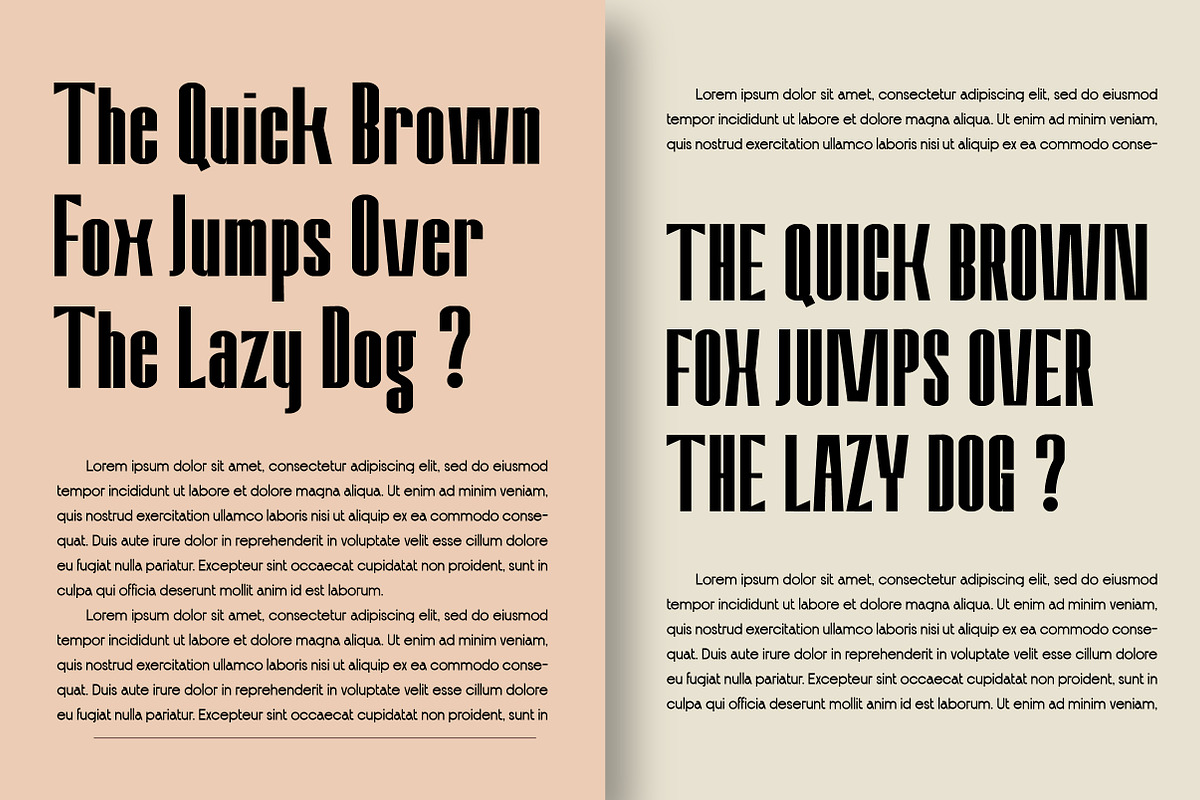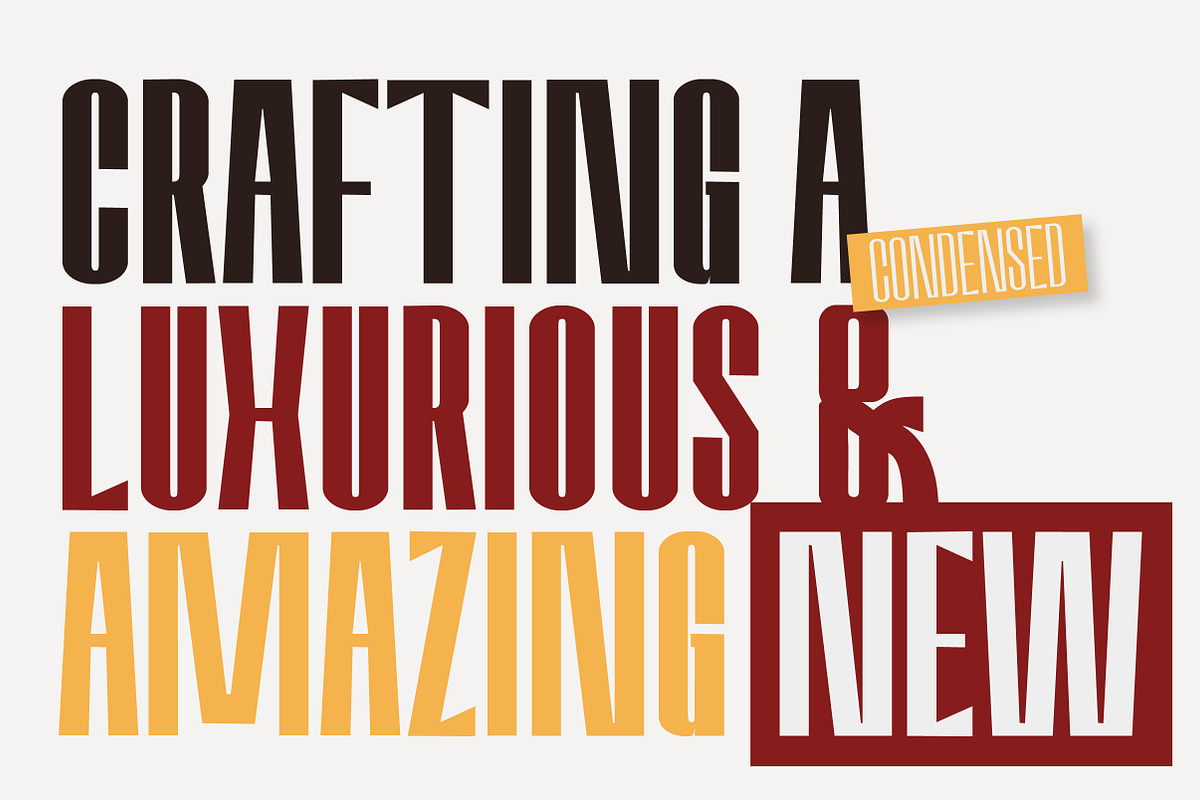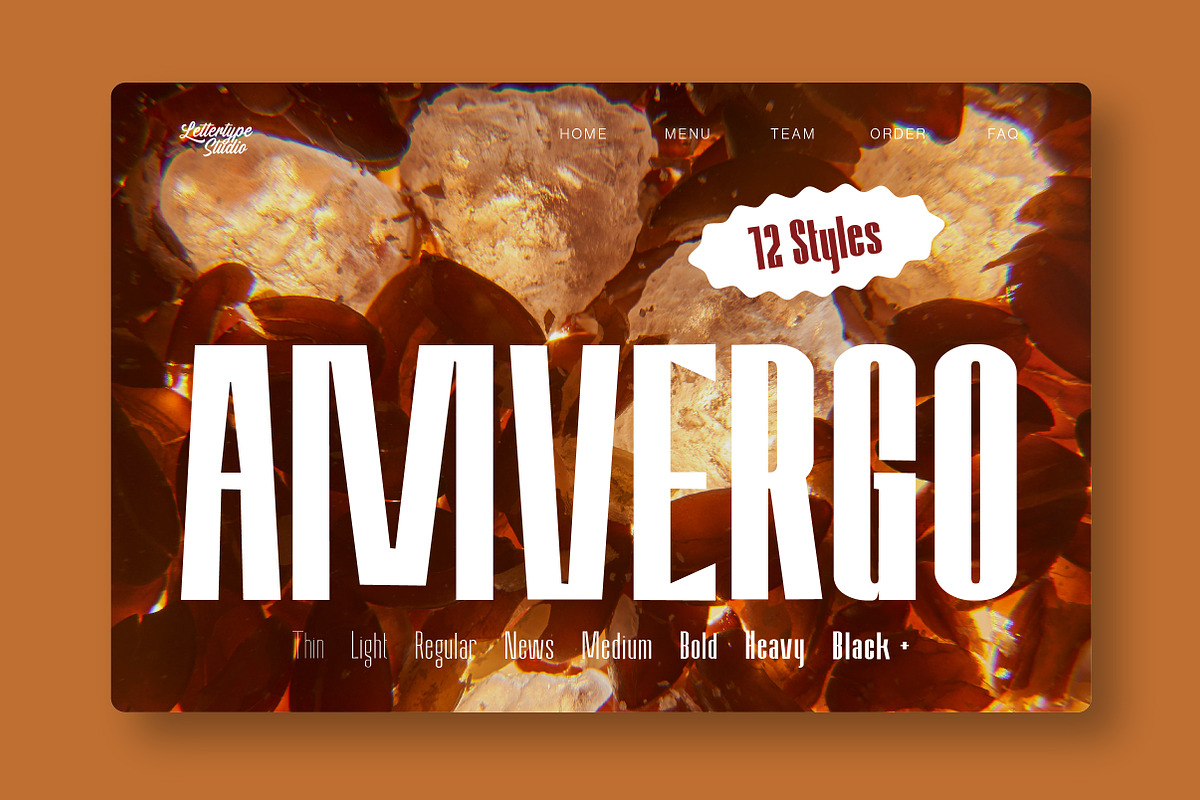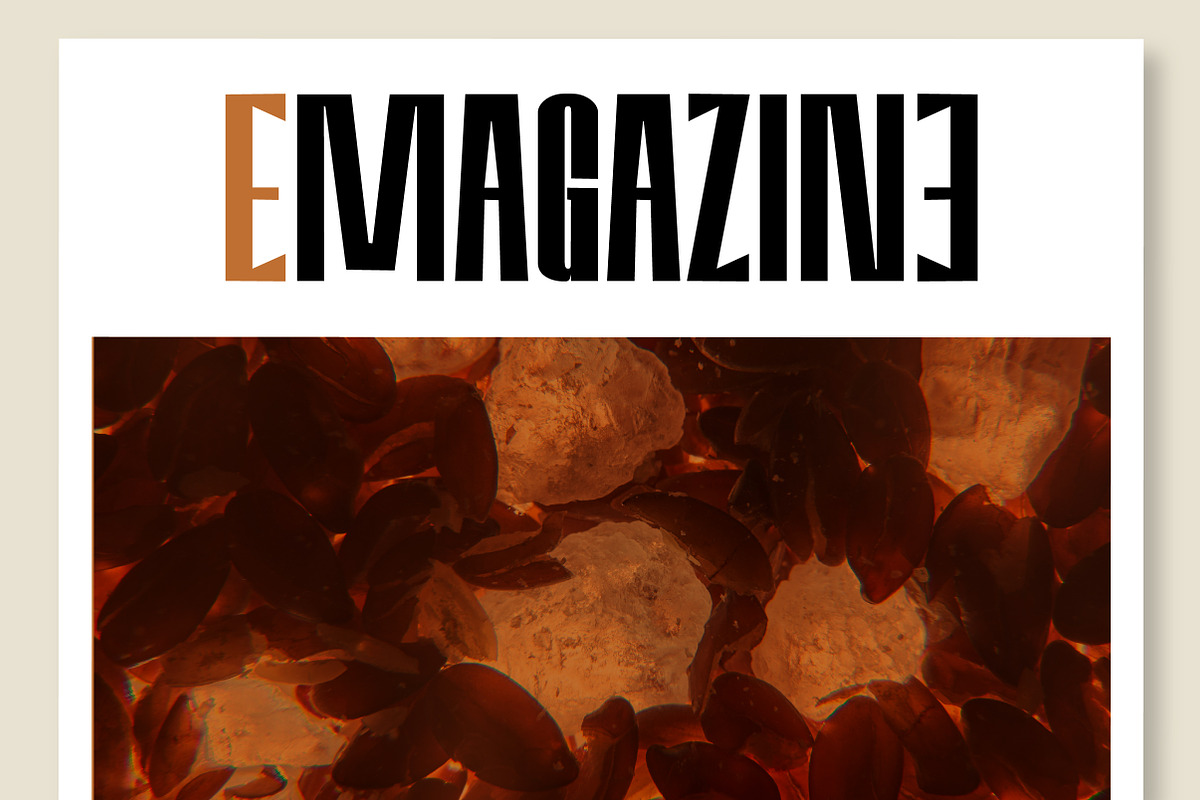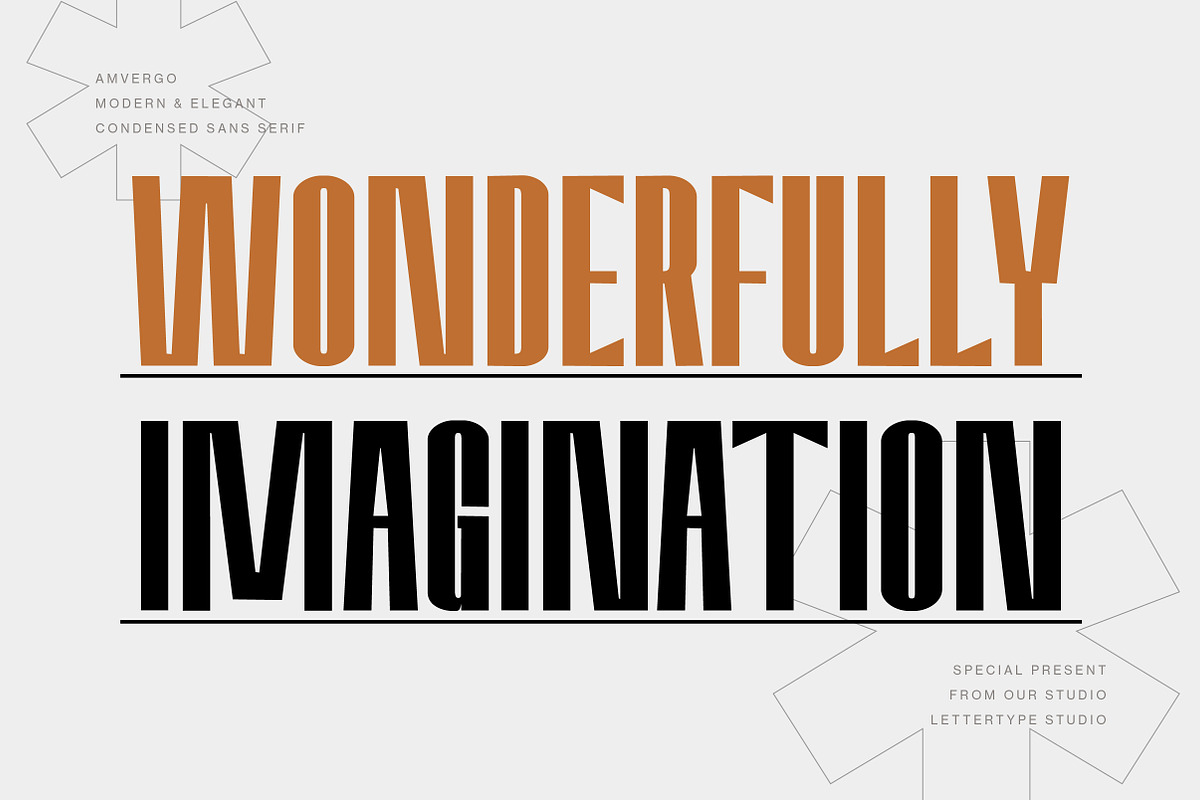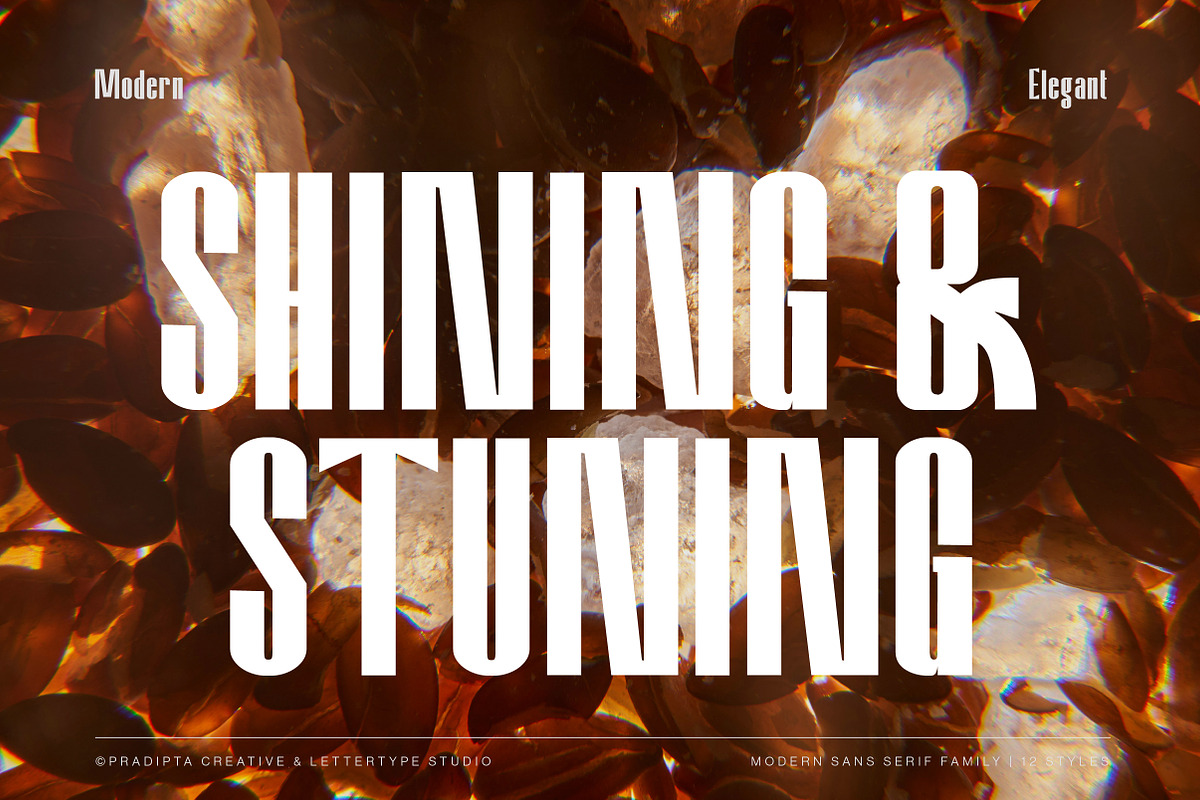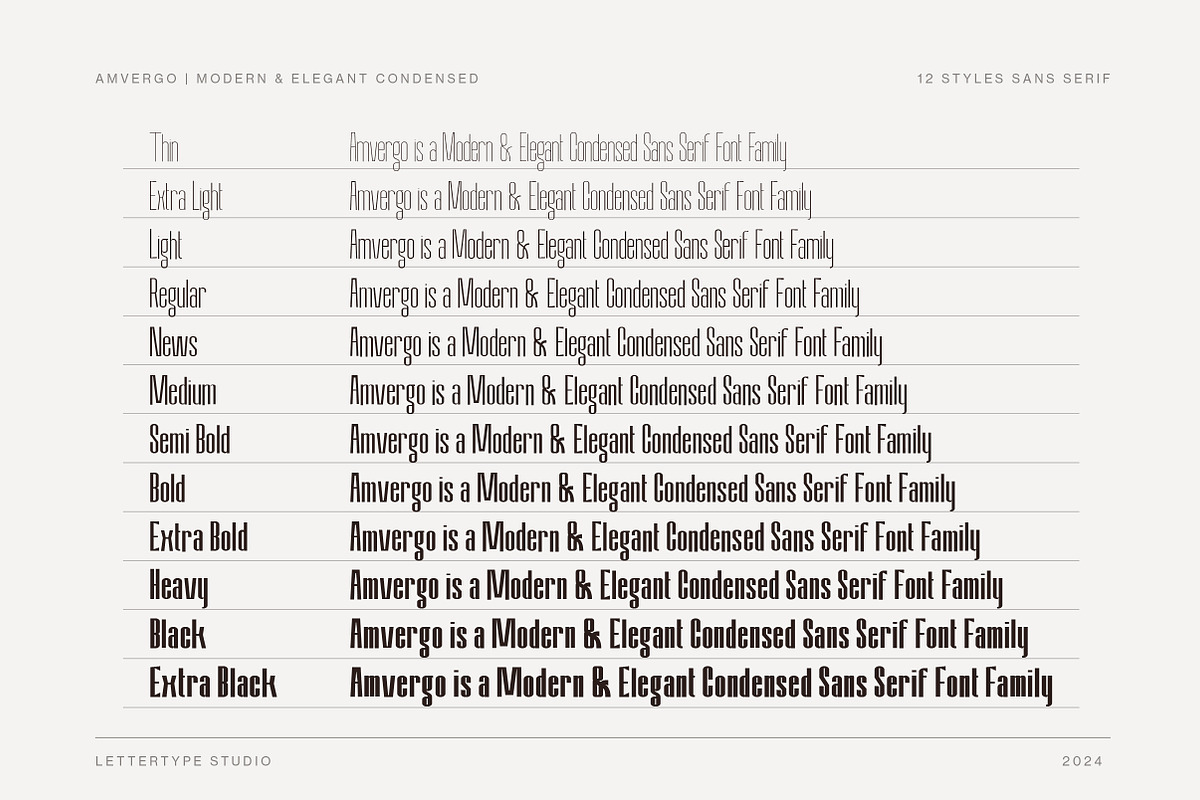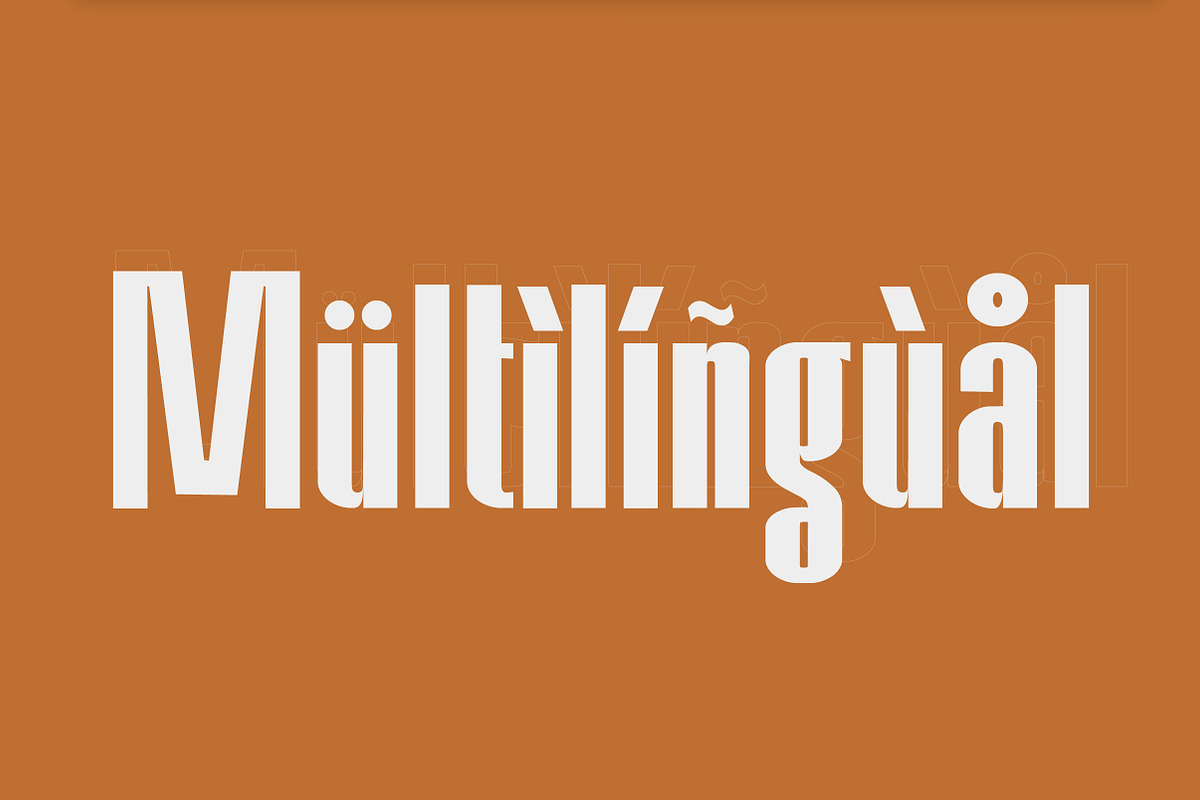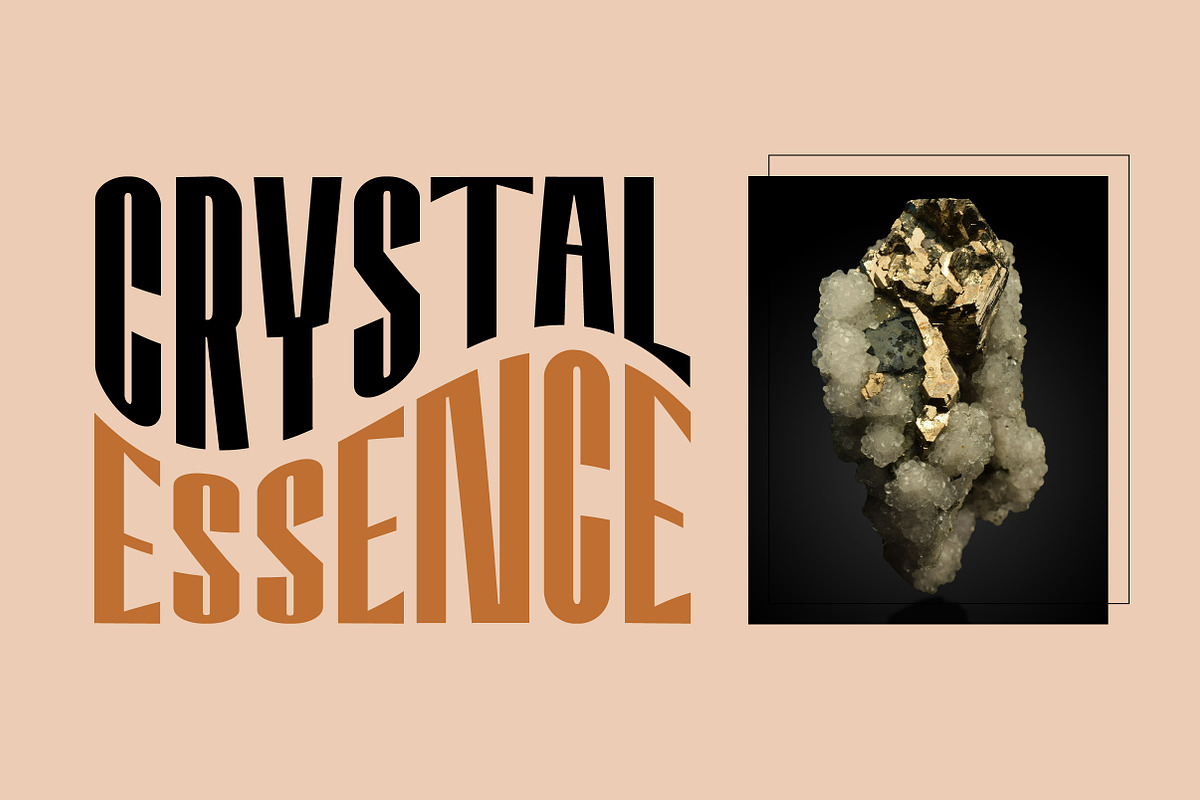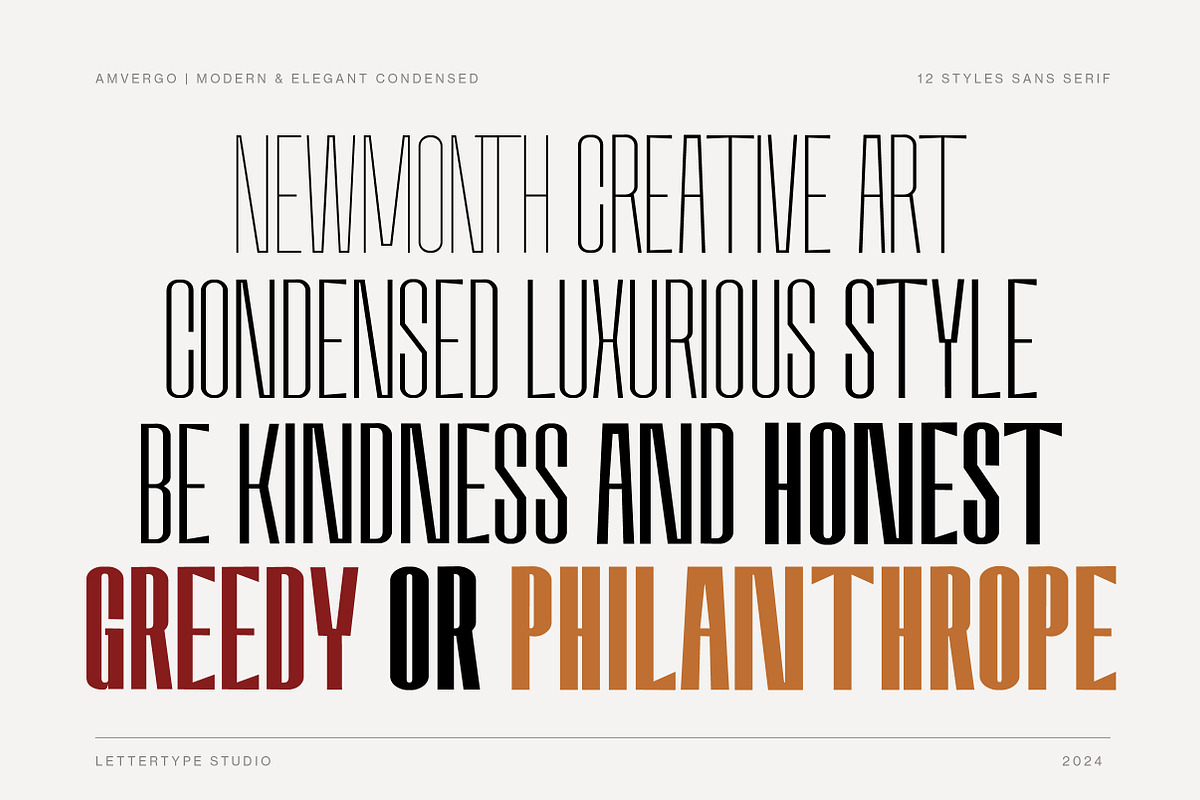
Amvergo Modern Sans Family
Amvergo is an elegant, modern, unique, and stunning condensed sans-serif font perfect for elevating your design with a professional look. These fonts feature clean lines and condensed proportions, offering a stylish, bold, contemporary aesthetic perfect for headlines.
Amvergo font family offering multiple styles and multilingual support, elevates your digital and print creations with a unique modern and vintage flair. This font works in large and small sizes and includes 12 styles from thin to extra black.
Amvergo Features:
- Lowercase & Uppercase
- Alternates & Ligature
- Font Family (12 Styles, thin to extra black)
- Bold headlines, magazine titles & editorial layouts
- Fashion branding, posters & product packaging
- Minimalist logo design & corporate identity
- Web design, advertising & creative campaigns
- Modern typography projects with sleek condensed style